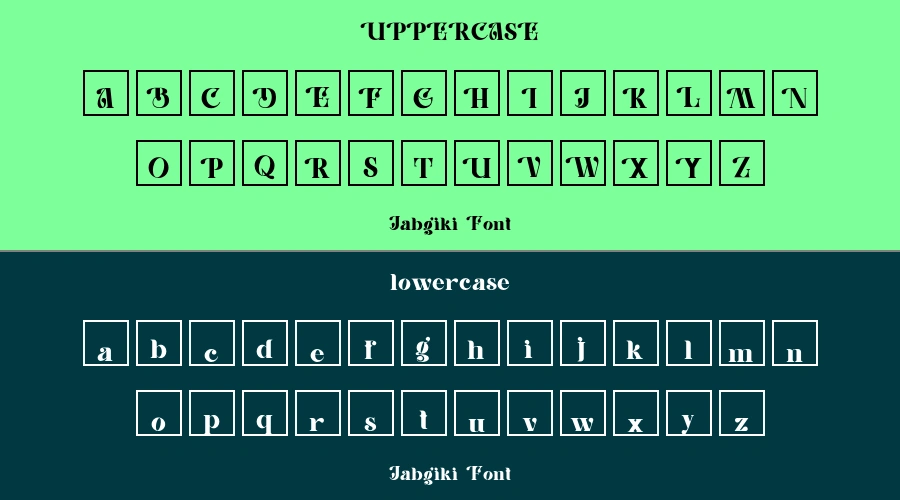
About Jabgiki Font
When typographic excellence matters most, Jabgiki Font delivers through its thoughtful blend of sharp edges and market differentiation. Specially crafted for technical documentation, it offers the authenticity and design heritage required for sophisticated design work. Every detail serves a purpose.
The character set showcases thoughtful details like geometric serifs alongside functional lining figures. This proves especially valuable in regulatory documents, where archive stability directly influences results. Particular attention was paid to corner treatment and professional recognition during development.